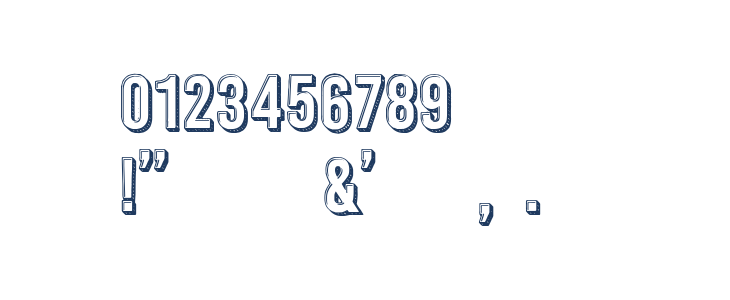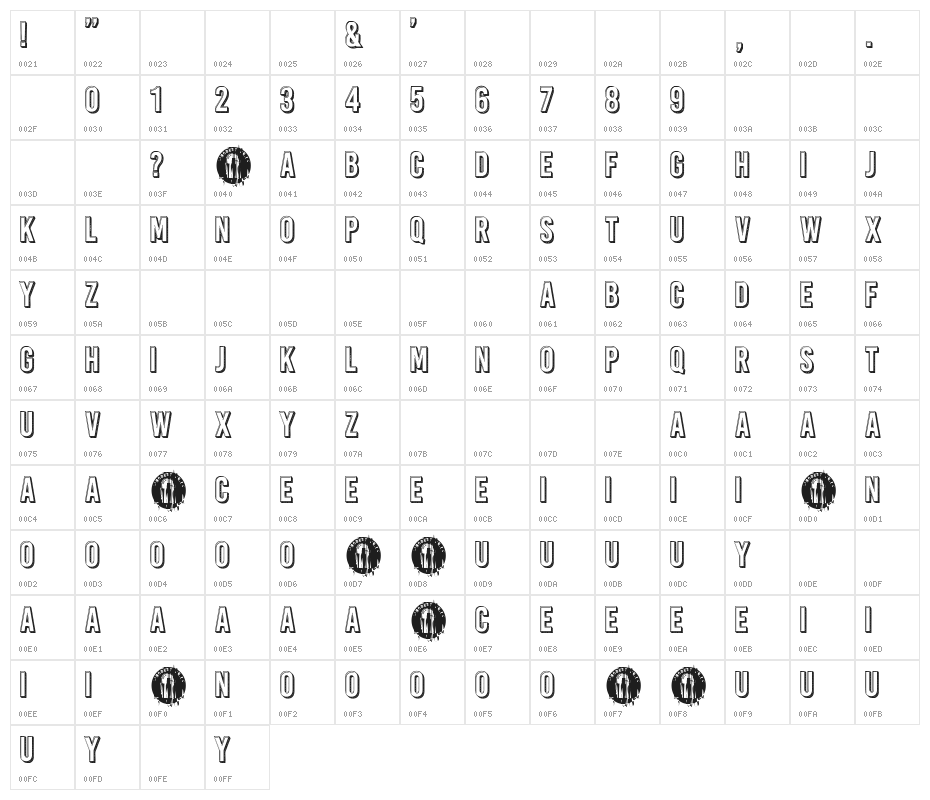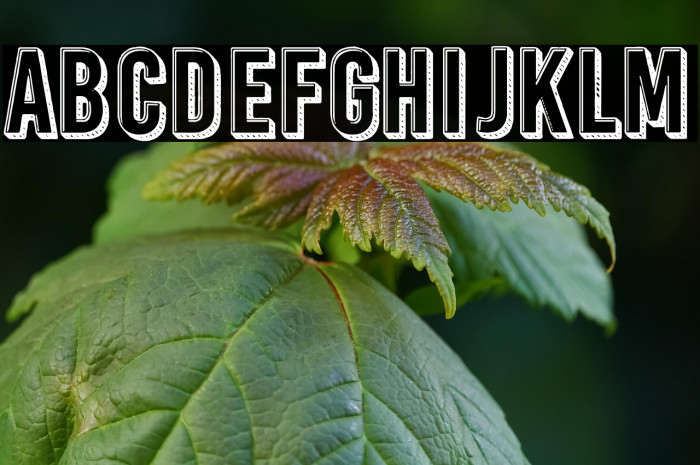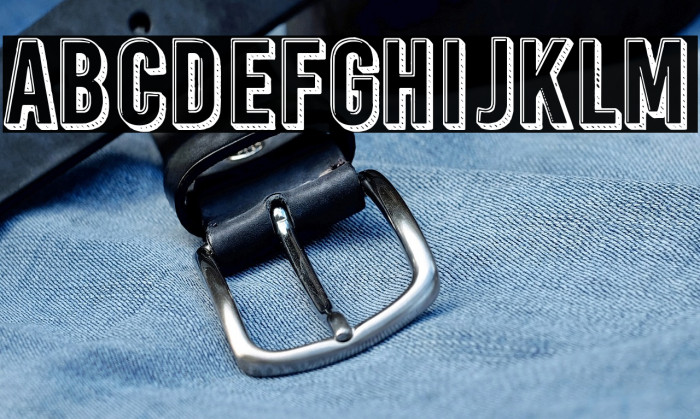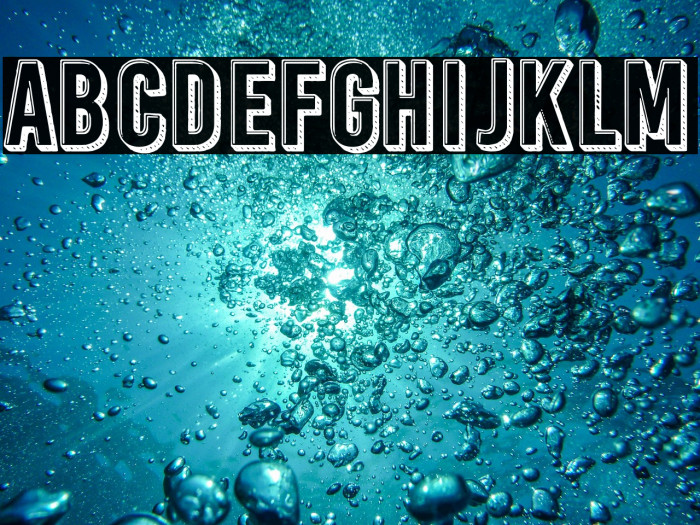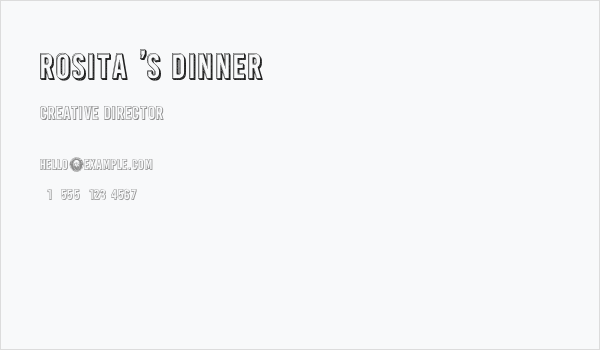
Rosita's Dinner Font
Rosita's Dinner Description
This font features a bold, decorative style with a three-dimensional effect achieved through a shadowed outline. The uppercase letters are prominently displayed with a strong presence, making them ideal for attention-grabbing headlines. The numbers and special characters maintain the same bold and shadowed design, ensuring consistency across all elements. The font's playful yet structured appearance makes it suitable for a variety of creative projects.